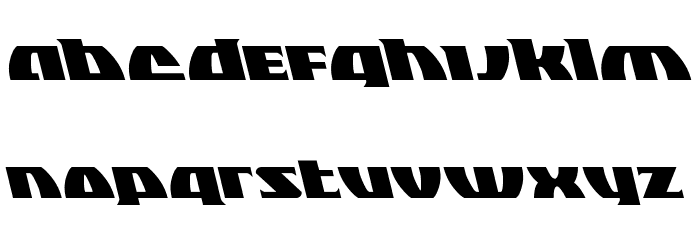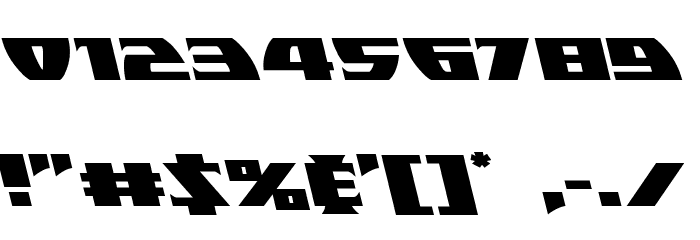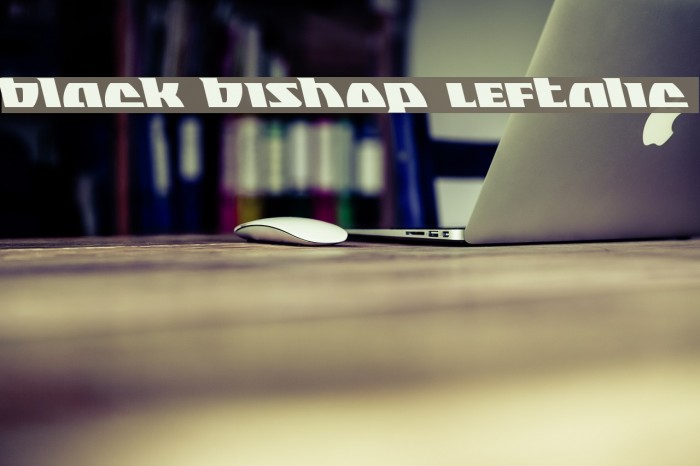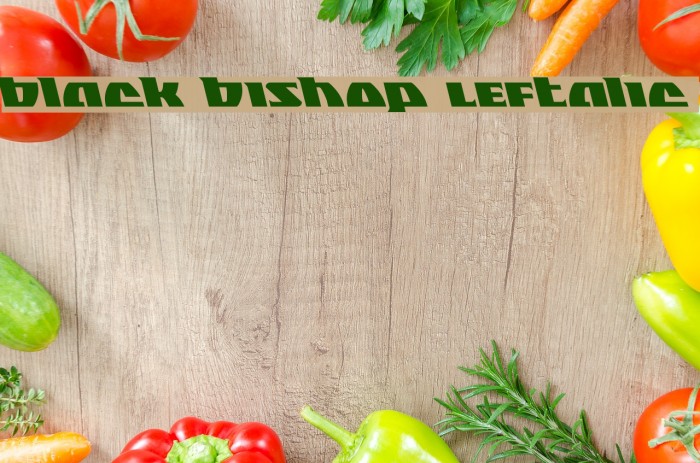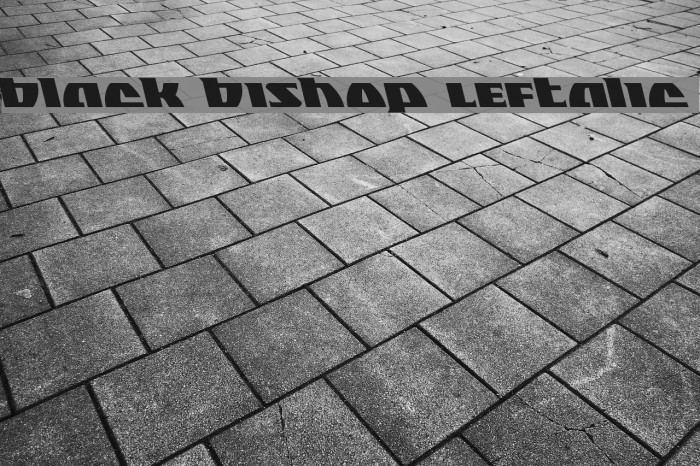
Black Bishop Leftalic Font
This font features a bold and angular design with a strong geometric influence. Each character is crafted with sharp edges and a dynamic slant, giving it a sense of movement and energy. The uppercase and lowercase letters maintain a consistent style, with a unique interplay of negative space that enhances its bold appearance. The numerals and special characters follow the same design principles, ensuring uniformity across all glyphs. This font's striking appearance makes it ideal for attention-grabbing designs.
A bold, angular font with a geometric and dynamic style.
- Proposed Projects: Ideal for posters, logos, and branding materials that require a strong visual impact.